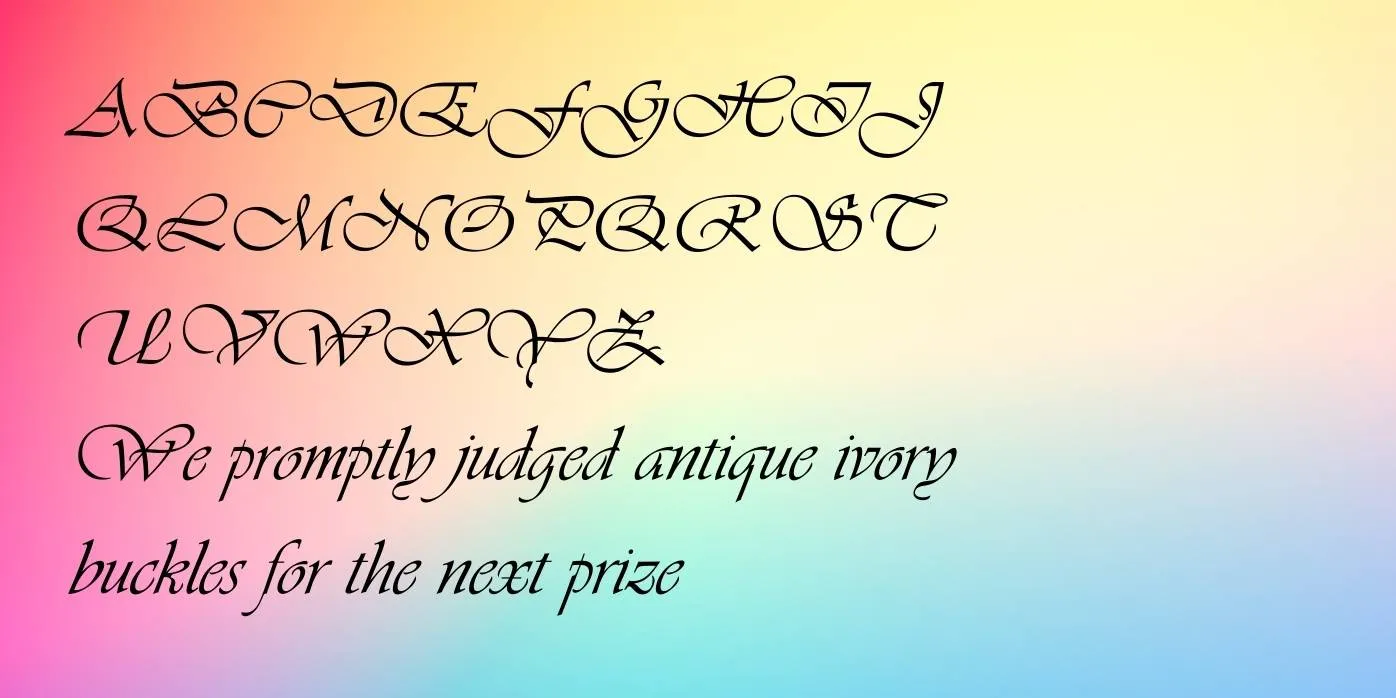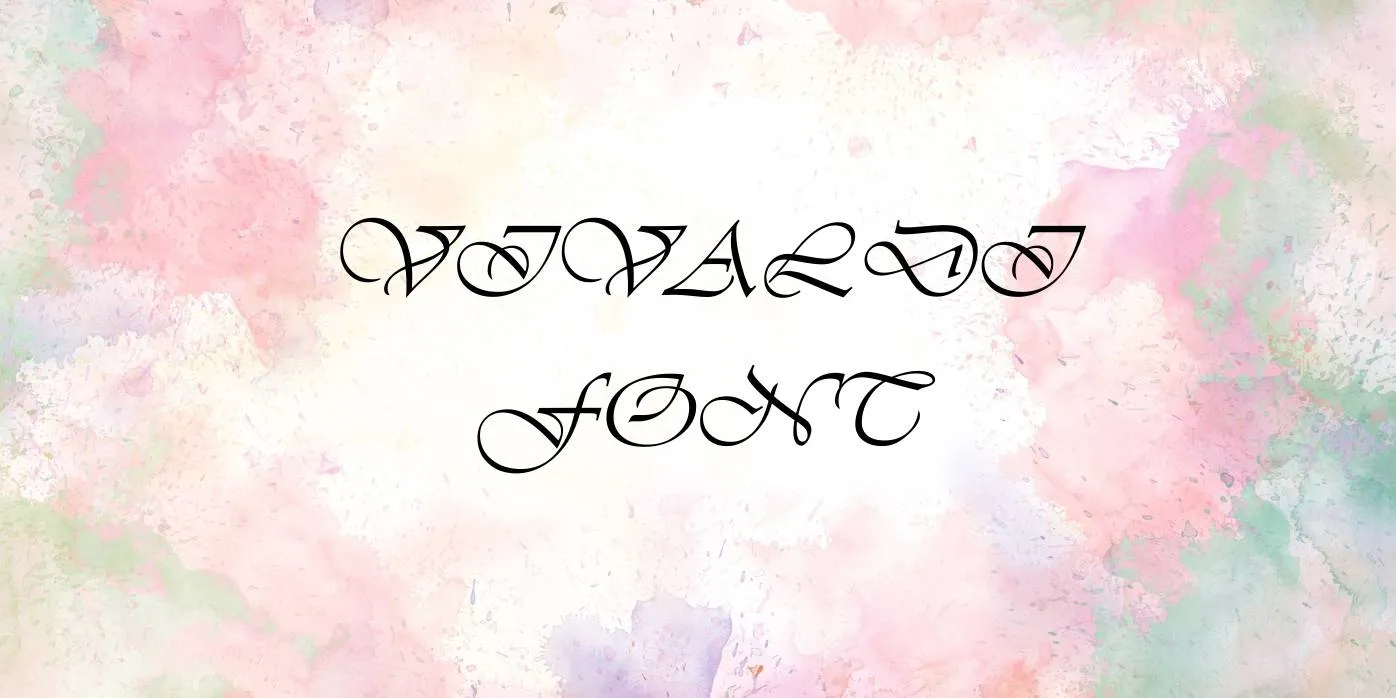
Vivaldi Font
Introducing the most elegant and luxury type font that is Vivaldi Font. The font family has a TTF feature and that belongs to a calligraphy typeface family. The designer of this typeface is Friedrich Peter that sounds like an expert font artist. If we talk about its glyphs the font family has Uppercase letters, Lowercase letters, Numbers and Numerals, and some unusual symbols, etc.
This font has the facility to carry many languages and it is free for personal use only. The words of this font are the guarantee of its professionalism. Whatever design you use this font on, it will be a wonderful design for you. This font is useful for everything from display design to screen design.
Its character has rounded corners with beautiful strokes and handwritten touches.